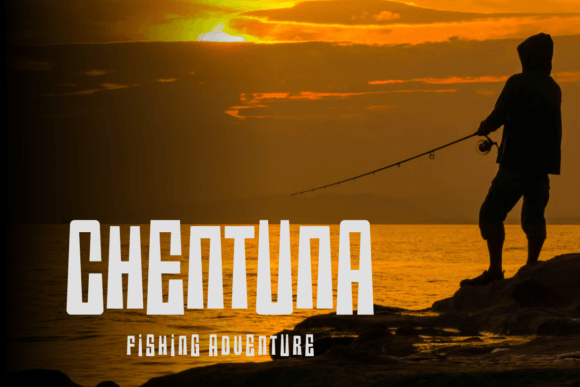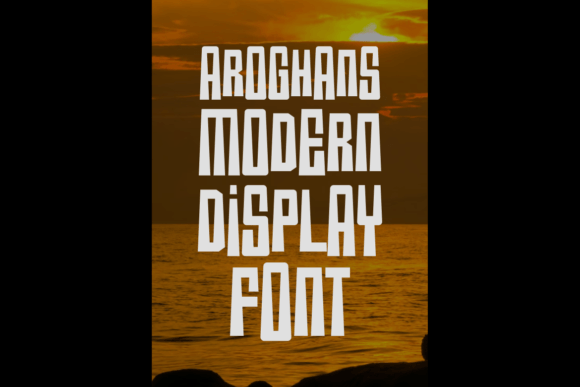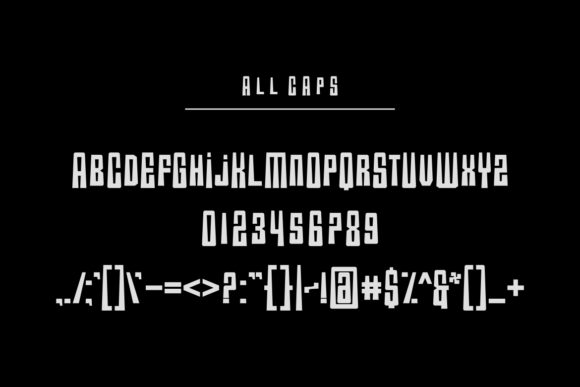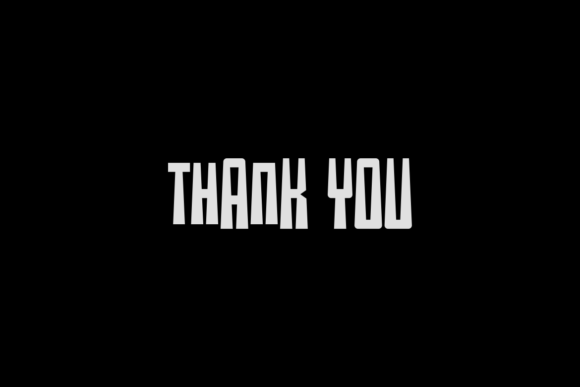
Aroghans Font: The Quirky Sans Serif Display Font You Need
Are you tired of using the same old fonts for your design projects? Look no further than Aroghans Font, a unique and interesting sans serif display font that’s sure to add a touch of personality to your work. A little bit quirky, Aroghans Font looks incredibly adept on a wide variety of contexts, making it a versatile addition to any designer’s toolkit.
What Makes Aroghans Font So Special?
Aroghans Font is a sans serif display font that defies traditional font conventions. Its quirky design makes it stand out from more traditional fonts, adding a touch of whimsy and playfulness to any design project. The font’s unique character set and irregular shapes give it a distinctive look that’s both modern and eye-catching.
Key Features of Aroghans Font
- Unique and quirky design: Aroghans Font’s irregular shapes and distinctive character set make it a one-of-a-kind font that’s sure to grab attention.
- Sans serif design: The font’s clean and minimalist sans serif design makes it perfect for use in a wide range of contexts, from digital displays to print materials.
- Display font: Aroghans Font is designed specifically for use as a display font, making it perfect for headlines, titles, and other attention-grabbing elements.
- Versatile: Despite its quirky design, Aroghans Font is incredibly versatile and can be used in a wide range of design projects, from branding and advertising to packaging and web design.
How to Use Aroghans Font in Your Design Projects
Aroghans Font is a versatile font that can be used in a wide range of design projects. Here are a few ideas to get you started:
- Branding and advertising: Use Aroghans Font to add a touch of personality to your brand’s logo, marketing materials, and advertising campaigns.
- Packaging design: Aroghans Font is perfect for use on product packaging, adding a touch of whimsy and playfulness to your brand’s products.
- Web design: Use Aroghans Font to add a touch of personality to your website’s headlines and titles, making your content stand out from the crowd.
- Print materials: Aroghans Font is perfect for use in print materials, such as brochures, flyers, and posters.
Tips for Getting the Most Out of Aroghans Font
Here are a few tips for getting the most out of Aroghans Font:
- Use it sparingly: Aroghans Font is a bold and attention-grabbing font, so use it sparingly to avoid overwhelming your design.
- Experiment with different colors: Aroghans Font looks great in a wide range of colors, so don’t be afraid to experiment and find the perfect color scheme for your design.
- Pair it with other fonts: Aroghans Font pairs well with a wide range of other fonts, so don’t be afraid to experiment and find the perfect font combination for your design.
Aroghans Font is a unique and interesting sans serif display font that’s sure to add a touch of personality to your design projects. Its quirky design, versatile nature, and wide range of uses make it a valuable addition to any designer’s toolkit. Whether you’re a seasoned designer or just starting out, Aroghans Font is definitely worth checking out.